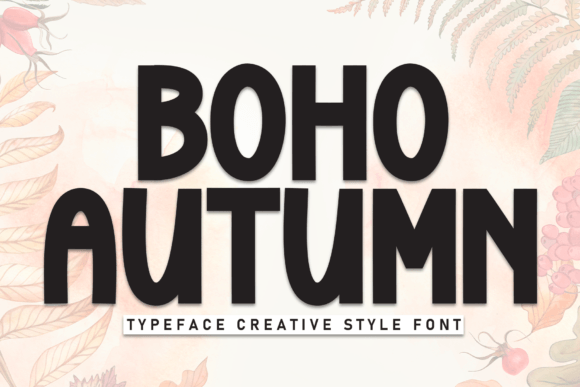
Introducing Boho Autumn Font: The Perfect Addition to Your Fall-Themed Designs
As the leaves begin to change colors and the air grows crisper, our minds turn to the cozy, rustic feel of autumn. For designers, this means it’s time to start thinking about creating fall-themed designs that evoke the warmth and natural beauty of the season. One of the key elements in creating these designs is the font, and that’s where Boho Autumn Font comes in.
What is Boho Autumn Font?
Boho Autumn is a handmade display font that embodies the playful, natural style of the autumn season. With its unique, handcrafted letters, this font gives off a warm and casual vibe that’s perfect for fall-themed designs. Whether you’re creating invitations, posters, or seasonal crafts, Boho Autumn Font is the perfect choice.
Key Features of Boho Autumn Font
- Handmade display font: Each letter has been carefully crafted by hand to give the font a unique, organic feel.
- Cozy, rustic feel: The font’s natural style and imperfections evoke the warmth and coziness of the autumn season.
- Playful, natural style: Boho Autumn Font has a lively, carefree feel that’s perfect for designs that need to capture the spirit of fall.
- Unique letters: No two letters are alike, giving the font a charming, handmade quality.
- Perfect for fall-themed designs: From invitations to posters to seasonal crafts, Boho Autumn Font is the ideal choice for any autumn-themed design project.
Uses for Boho Autumn Font
So what can you use Boho Autumn Font for? The possibilities are endless! Here are a few ideas to get you started:
- Fall-themed invitations: Use Boho Autumn Font to create warm and inviting invitations for harvest-themed parties, Thanksgiving gatherings, or other autumnal events.
- Posters and flyers: Add a touch of rustic charm to your posters and flyers with Boho Autumn Font.
- Seasonal crafts: Use the font to create handmade crafts like signs, banners, or other decorative items that evoke the spirit of fall.
- Social media graphics: Add a personal touch to your social media graphics with Boho Autumn Font.
Tips for Using Boho Autumn Font
Here are a few tips for getting the most out of Boho Autumn Font:
- Use it sparingly: Because of its unique, handmade quality, Boho Autumn Font is best used sparingly. Try using it for headings or titles, and a more straightforward font for body text.
- Experiment with colors: The natural, earthy feel of Boho Autumn Font lends itself well to a range of autumnal colors, from warm reds and oranges to deep browns and yellows.
- Mix and match: Don’t be afraid to mix and match Boho Autumn Font with other fonts to create a unique look.
Boho Autumn Font is a unique and versatile font that’s perfect for fall-themed designs. With its handmade, rustic feel and playful, natural style, it’s the ideal choice for designers looking to add a touch of autumnal charm to their work. Whether you’re creating invitations, posters, or seasonal crafts, Boho Autumn Font is sure to become a favorite in your font collection.